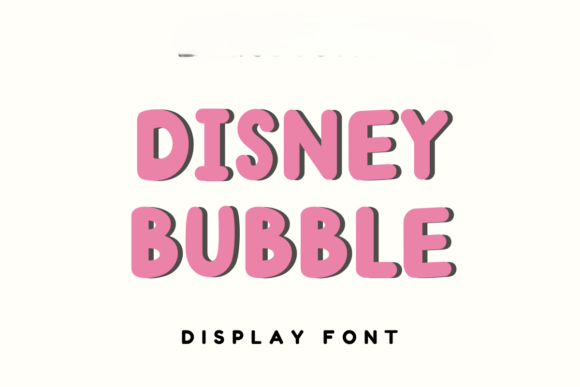
Get Ready to Add a Touch of Whimsy to Your Designs
Have you ever been brainstorming a project and suddenly, a spark of creativity hits you? For me, it’s usually when I stumble upon an adorable font that screams ‘fun’ and ‘playful’. Recently, I discovered the Disney Bubble Font, and I’m still grinning from ear to ear. This sweet and lively display font is a masterclass in capturing the essence of classic cartoons.
With its chunky bubble-like characters, the Disney Bubble Font is perfect for party invitations, playful branding, and anything that needs a sprinkle of magic and fun. As a designer, I can appreciate the value of having a versatile font that can elevate even the most mundane projects. The Disney Bubble Font is an absolute gem, and I’m excited to share its charm with you.
Key Features of Disney Bubble Font
- Unique Characteristics: The Disney Bubble Font features a playful, whimsical design with rounded edges and soft curves, evoking a sense of nostalgia and wonder.
Disney Bubble Font Review
As a designer, I was excited to dive into the Disney Bubble Font and see what magic it had to offer. ✨
The font’s playful, whimsical feel immediately drew me in. The rounded edges and childlike charm are perfect for creating a sense of wonder and enchantment. The font is also surprisingly versatile, working well for both digital and print projects. ✨
However, I did encounter a few limitations. ⚠️ The font’s lack of robustness makes it less suitable for projects that require a lot of text, as the characters can become distorted when scaled up. Additionally, the font’s limited character set may make it difficult to use for projects that require a wide range of special characters.
Overall, I’d say the Disney Bubble Font is a great addition to any designer’s toolkit. While it may not be suitable for every project, its unique charm and playfulness make it a great choice for those looking to add a touch of magic to their designs.
Pros:
- Playful, whimsical feel
- Surprisingly versatile
- Perfect for creating a sense of wonder and enchantment
Cons:
- Lack of robustness
- Limited character set
To get the most out of the Disney Bubble Font, consider the following tips:
- Use it sparingly to add a touch of whimsy to your design.
- Pair it with other playful fonts to create a cohesive look.
- Experiment with different font sizes and colors to achieve the desired effect.
The Disney Bubble Font is commonly used in:
- Animated TV shows and movies.
- Use Disney Bubble Font for the main invitation text and the couple’s names.
- Combine with elegant gold or silver foil stamping for a luxurious feel.
- Add a custom illustration of the couple’s favorite Disney characters or a Disney-inspired design.
- Use a bold font size to make the text pop.
- Add a custom ribbon or lace to give it a romantic touch.
- Include a special message or quote from a Disney movie to make it extra special.
- Use Disney Bubble Font for the party banners, signs, and decorations.
- Combine with colorful balloons, streamers, and confetti for a festive atmosphere.
- Add custom illustrations of the birthday child’s favorite Disney characters.
- Use a large font size to make the text visible from a distance.